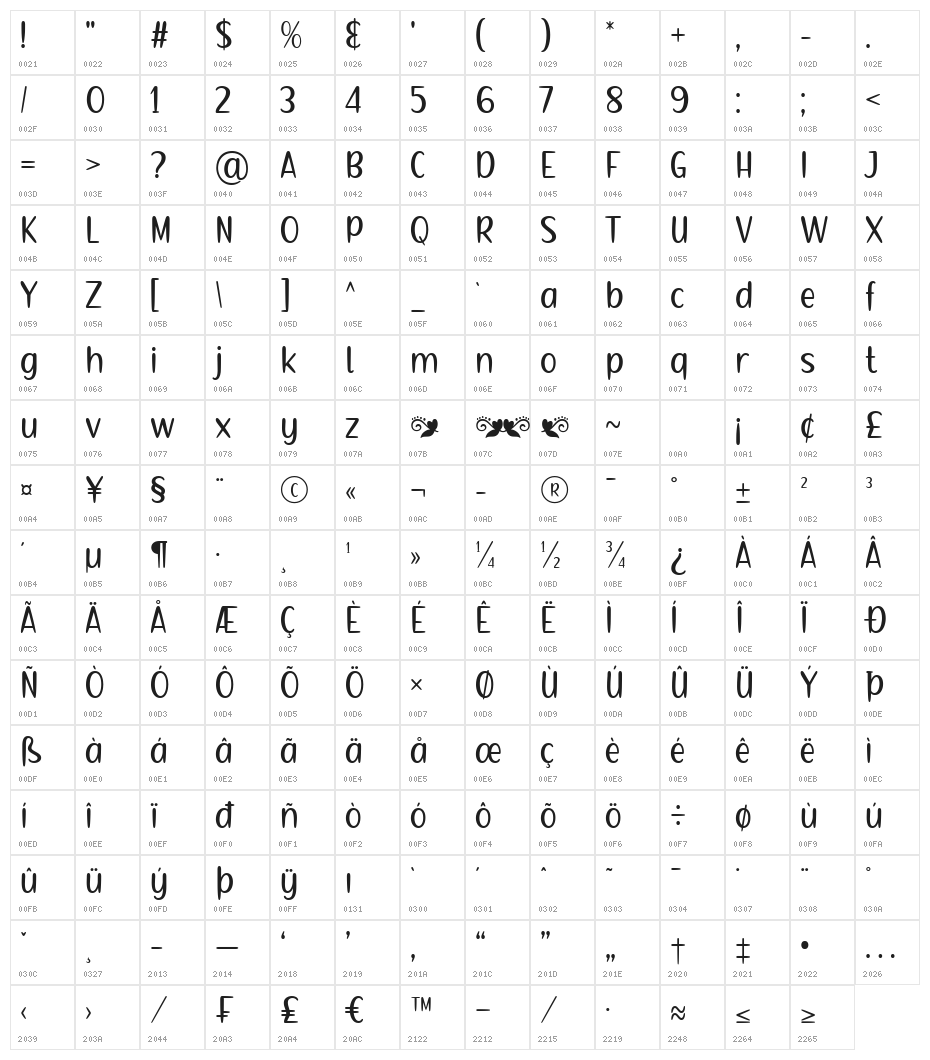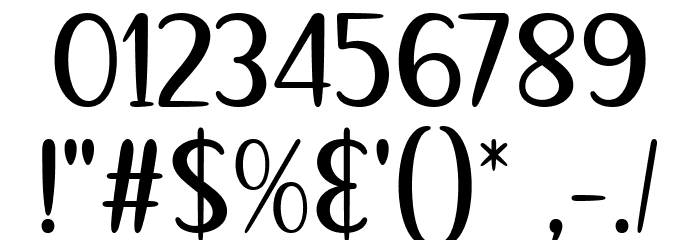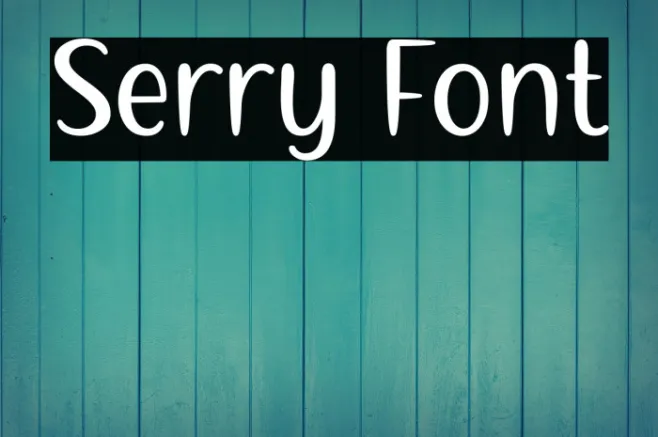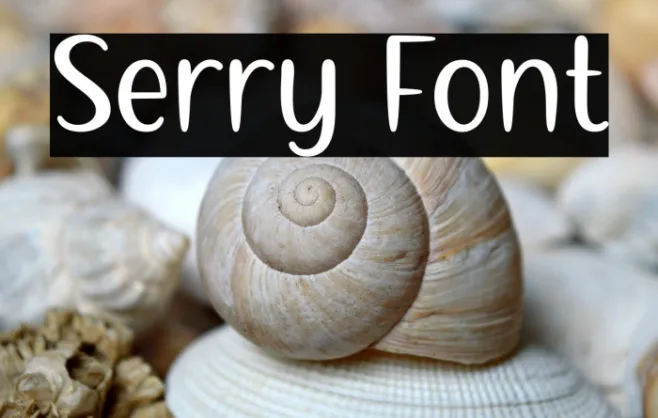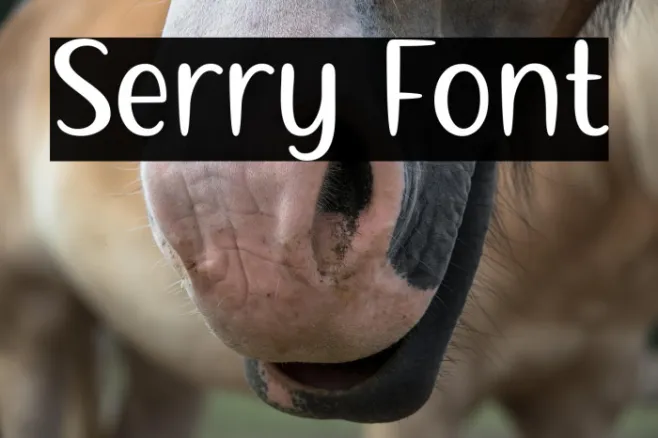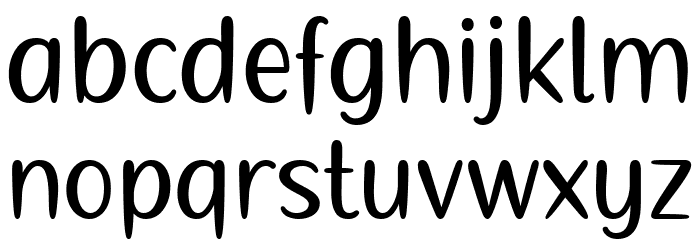
Serry Font
Serry Description
This font features a playful and rounded style, characterized by its smooth curves and friendly appearance. The letters are slightly elongated with a consistent stroke width, giving it a casual and approachable feel. The uppercase and lowercase letters maintain a harmonious balance, while the numerals and special characters complement the overall design. Its simplicity and readability make it versatile for various applications.
| Use Case | Headlines, Logos, Informal text |
| Proposed Projects | Ideal for children's books, playful branding, greeting cards, and casual digital content. |